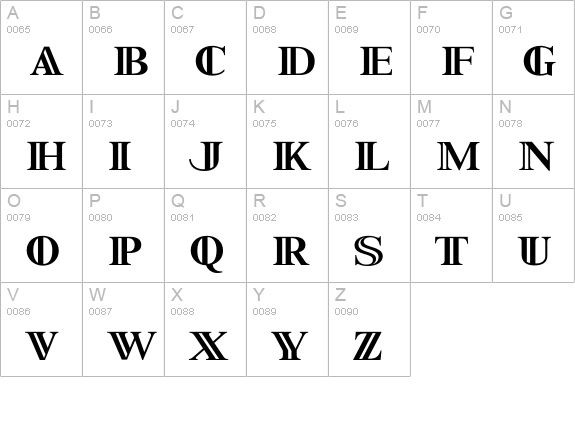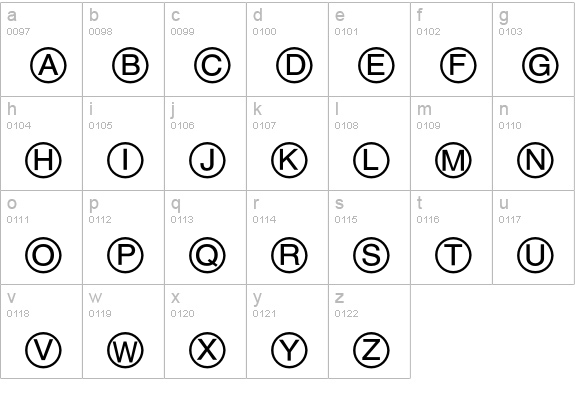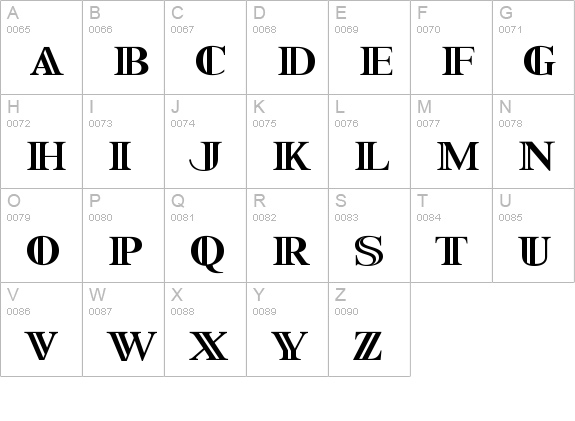
SpecialAlphabetsP07 Font Details
SpecialAlphabetsP07 is a stunning font that is sure to captivate and inspire with its unique and intricate design. This font showcases a collection of special alphabets, each carefully crafted to bring a touch of elegance and creativity to any project. With its elaborate curves and beautiful strokes, SpecialAlphabetsP07 adds a touch of sophistication to logos, branding materials, invitations, and more. What makes SpecialAlphabetsP07 even more appealing is the fact that it is available for free. Yes, you read that right! This font can be freely downloaded at FontsMarket.com, making it easily accessible to anyone who wants to add a touch of uniqueness to their designs without breaking the bank. Whether you are a professional designer or a creative enthusiast, SpecialAlphabetsP07 is a font that will undoubtedly elevate your work to new heights. Its versatility allows it to be used in a wide range of projects, from elegant wedding invitations to eye-catching posters. With its freely available download, SpecialAlphabetsP07 offers an opportunity for designers and creatives alike to enhance their work without any cost. So why wait? Head over to FontsMarket.com and download SpecialAlphabetsP07 today to bring a touch of sophistication and creativity to your next project.